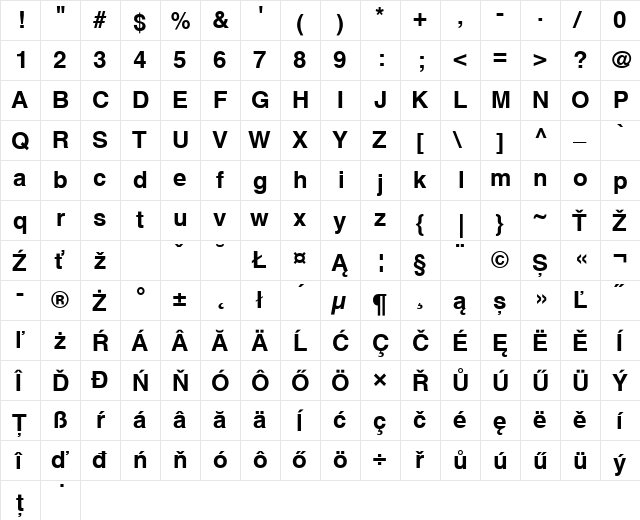
Helvetica CE Bold
Design Context for Helvetica CE Typeface
Helvetica CE takes a measured approach to typography — its balanced proportions and neutral character make it a reliable workhorse for both digital and print work. The heavy weight commands attention and anchors typographic hierarchies.